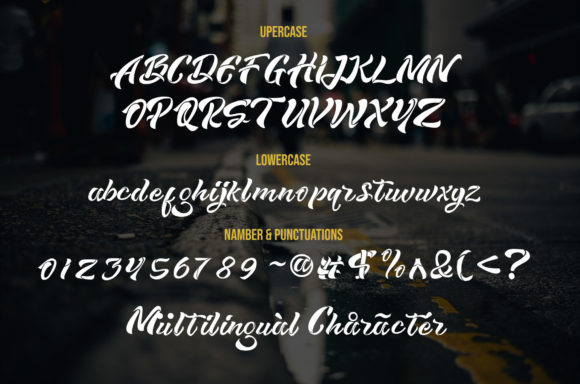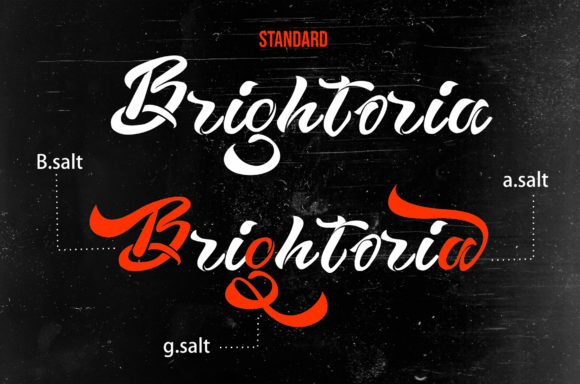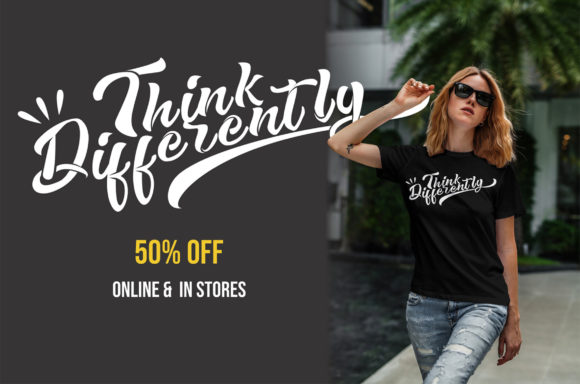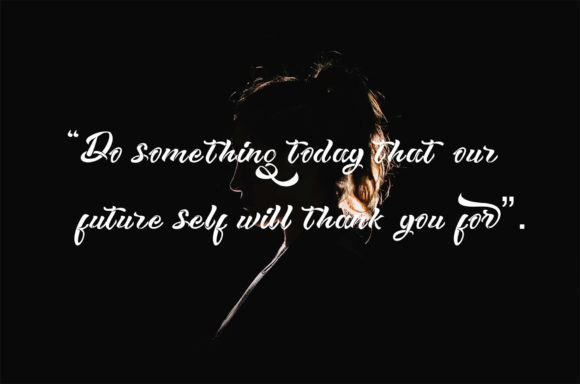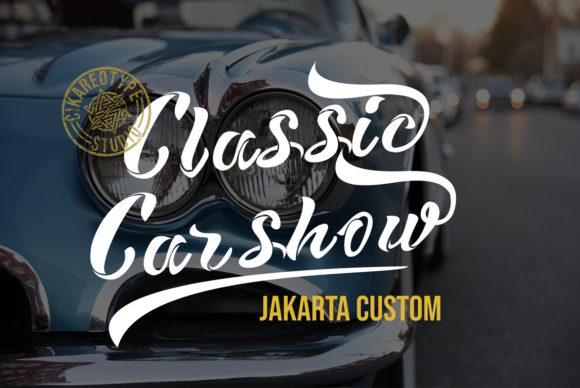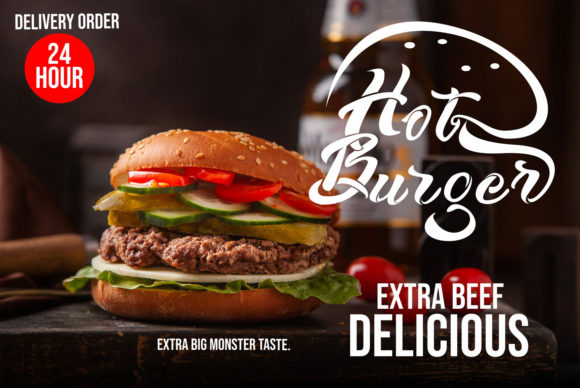
Introducing Brightoria Font: Elevate Your Designs with a Touch of Handwritten Elegance
In the world of graphic design, fonts play a pivotal role in conveying messages, expressing creativity, and capturing the essence of a brand. Among the myriad of fonts available, script fonts hold a special place for their ability to add a personal touch to designs. One such gem that has been making waves in the design community is the Brightoria Font. This article aims to delve into the features, benefits, and uses of Brightoria, a script font that is rapidly becoming a favorite among designers and crafters alike.
What is Brightoria Font?
Brightoria is a beautifully crafted script font that boasts a handwritten look, bringing a sense of warmth and authenticity to any design project. Its fluid strokes and elegant ligatures make it an ideal choice for a wide range of applications, from logotypes and titles to apparel, crafting, packaging, and advertising. The font’s versatility and charm have made it a sought-after asset for designers looking to infuse their work with a personal and creative flair.
Key Features of Brightoria Font
Brightoria comes packed with several features that set it apart from other script fonts:
• OpenType Features: The font includes regular and stylistic alternate characters, allowing designers to customize their text and create unique visual identities.
• PUA Encoding: Being PUA (Private Use Area) encoded, Brightoria offers easy access to all glyphs and swashes. This feature is particularly beneficial for designers who wish to experiment with different elements without the hassle of navigating complex character maps.
• Handwritten Look: The font’s handwritten appearance lends a personal and approachable feel to designs, making it perfect for brands aiming to connect with their audience on a more intimate level.
Applications of Brightoria Font
The versatility of Brightoria makes it suitable for a myriad of design projects:
• Logotypes and Branding: Create memorable and impactful logos with Brightoria’s elegant script.
• Titles and Headings: Add a touch of sophistication to your titles and headings, making your content stand out.
• Apparel and Fashion: Design stunning apparel and fashion-related materials with a font that speaks to style and creativity.
• Crafting and DIY Projects: Perfect for crafters, Brightoria can add a professional touch to handmade products and DIY project designs.
• Packaging and Advertising: Elevate your packaging and advertising materials with a font that combines elegance and readability.
Why Choose Brightoria Font?
Choosing Brightoria for your design projects comes with several advantages:
• Unique Aesthetic: Its handwritten look and OpenType features provide a unique aesthetic that can set your designs apart.
• Ease of Use: The PUA encoding ensures that you can easily access and use the font’s extensive features.
• Versatility: Suitable for a wide range of projects, Brightoria can be a valuable addition to any designer’s toolkit.
• Support for Creativity: With Brightoria, designers have the flexibility to experiment and push the boundaries of their creativity.
Brightoria Font is more than just a script font; it’s a tool that can transform your designs, adding a layer of elegance and personality. Whether you’re a professional designer or a passionate crafter, Brightoria offers the features and flexibility needed to bring your creative visions to life. With its handwritten charm, extensive OpenType features, and user-friendly PUA encoding, Brightoria is poised to become an indispensable asset in your design arsenal. Explore the possibilities with Brightoria and discover how it can elevate your design projects to new heights.